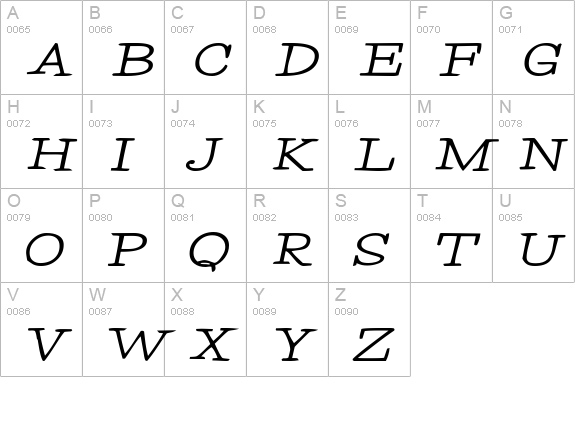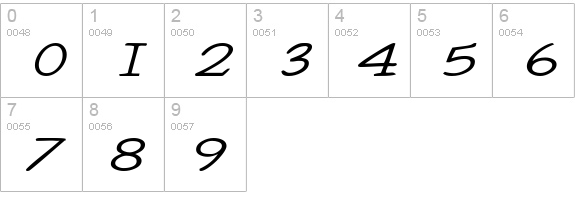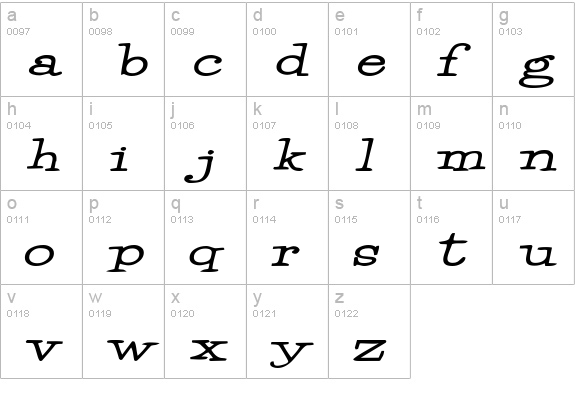
Merrill Bold Italic Font Details
Merrill Bold Italic is a strong, high-contrast, italic variant in the Merrill typeface family \xE2\x80\x94 well suited to headlines, attention-grabbing titles, and strong calls-to-action.
Merrill Bold Italic font is a striking and versatile typeface that exudes confidence and sophistication. Its bold and italic design adds a touch of elegance to any project, making it perfect for headlines, titles, and other attention-grabbing text. The sleek curves and sharp lines of Merrill Bold Italic create a modern yet timeless look that is sure to make a statement. The best part? Merrill Bold Italic font is available for free download at FontsMarket.com. This means you can easily access this stylish font to elevate your designs without breaking the bank. Whether you're working on a branding project, a poster design, or anything in between, Merrill Bold Italic is a great choice for adding a touch of flair and professionalism. Download it today and take your designs to the next level!